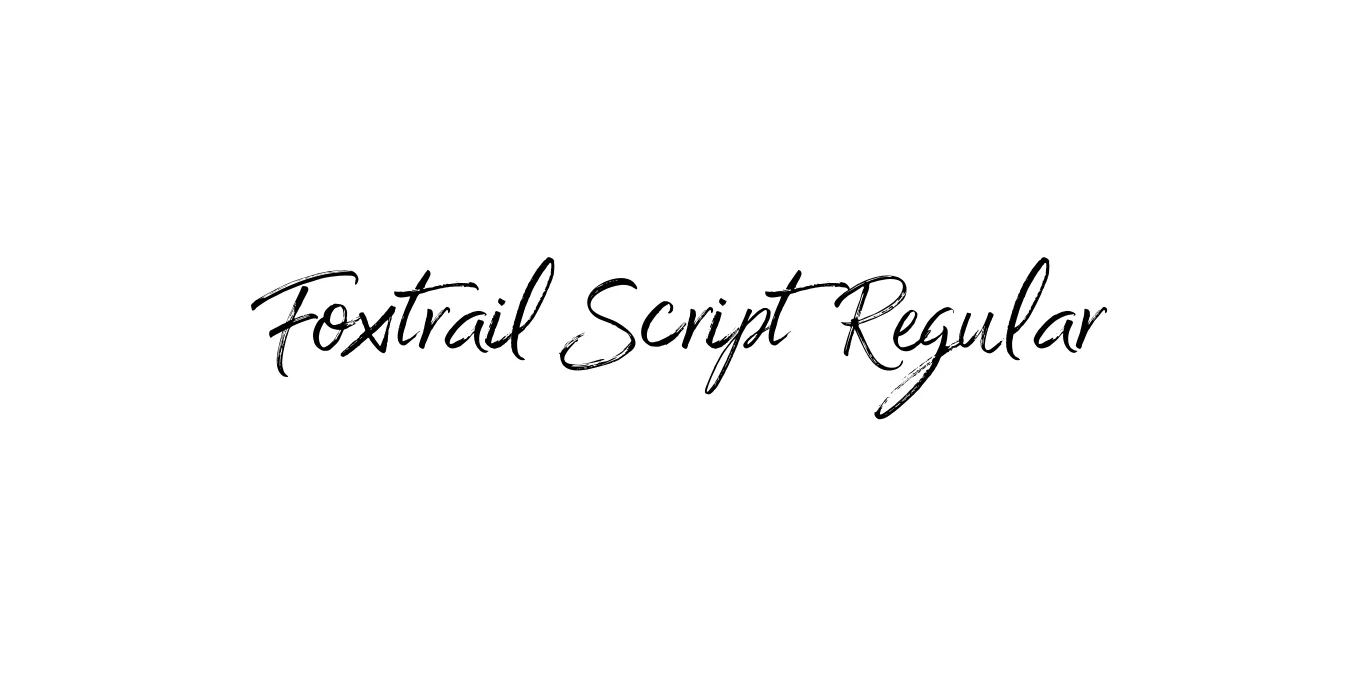
Foxtrail Script Regular
Designed by Ian Barnard
| Font Name | Foxtrail Script |
| Designer | Ian Barnard |
Foxtrail Script Regular is a beautifully crafted handwritten font that captures the raw, energetic essence of ink-laden brush strokes. Designed by the talented Ian Barnard, this typeface is renowned for its rustic aesthetic and organic texture, which provides a bespoke, handcrafted feel to any design project. Its deliberate imperfections and flowing ligatures make it a favorite for creatives seeking an adventurous and authentic look that stands out from standard digital fonts.
The versatility of Foxtrail Script allows it to excel in a variety of high-impact applications, ranging from modern branding to artisanal product packaging. It bridges the gap between traditional calligraphy and contemporary street style, ensuring that it remains legible while retaining its expressive character. This font is especially effective for projects that require a personal touch, helping brands communicate a sense of craftsmanship and uniqueness across both print and digital platforms.
Foxtrail Script Regular Best Uses
Creating unique and memorable logos with an artisanal touch.
Designing eye-catching quotes and high-energy promotional posts.
Applying to boutique product labels for a handcrafted, premium look.
Adding a rustic and personal feel to modern event stationery.